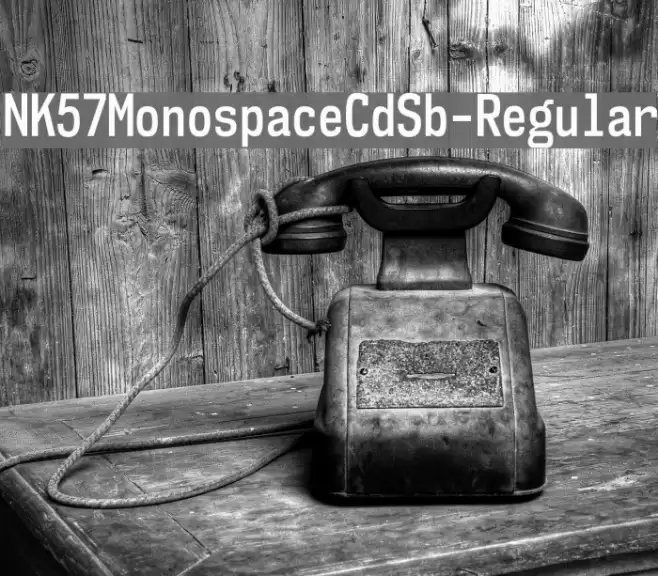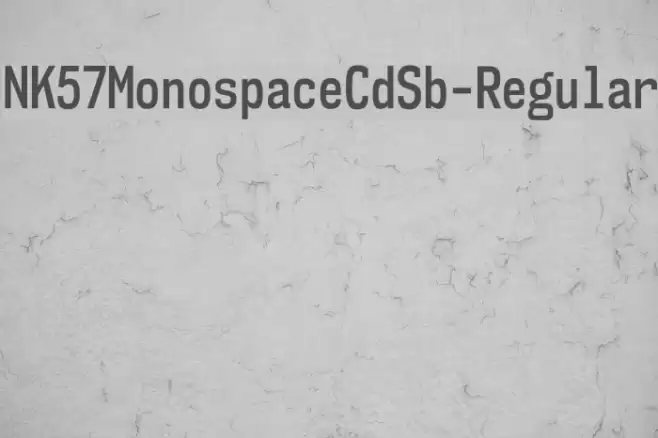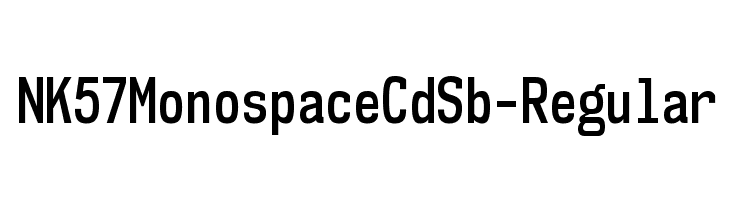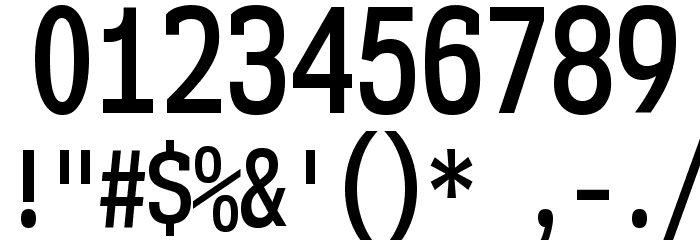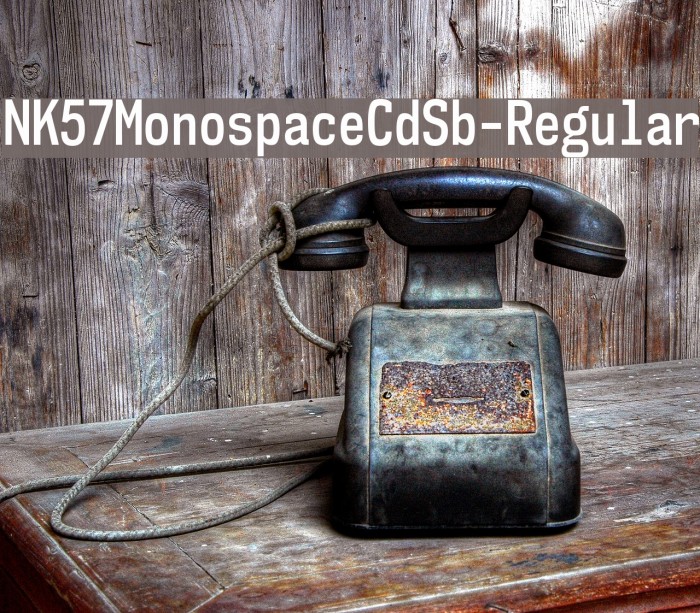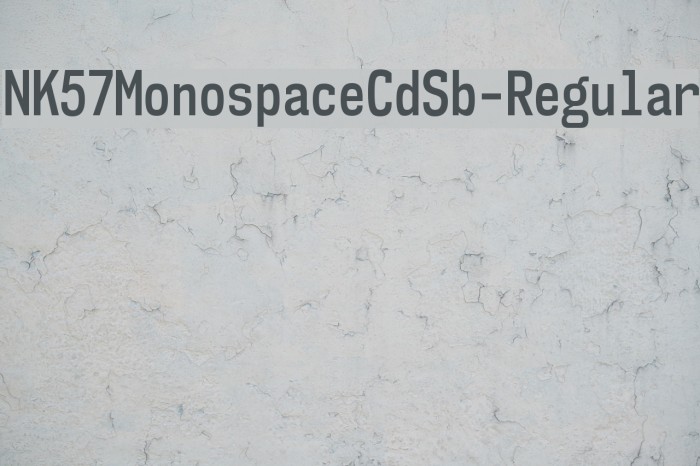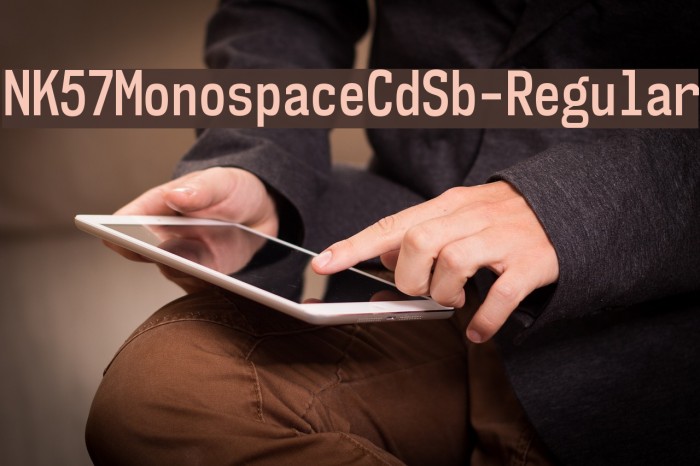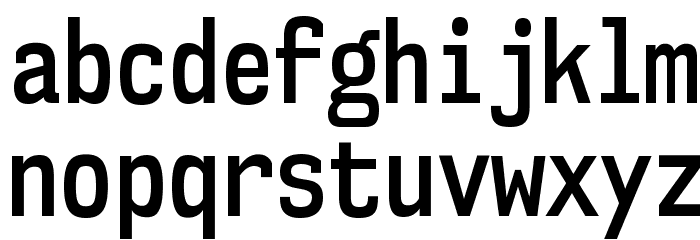
NK57MonospaceCdSb-Regular Font
NK57MonospaceCdSb-Regular Description
This font is a monospaced typeface characterized by its uniform character width, which ensures that each letter and symbol occupies the same amount of horizontal space. It features a clean and modern design with straight lines and minimal curves, making it highly legible and suitable for coding and technical documentation. The uppercase and lowercase letters are well-balanced, with a slightly condensed appearance that maximizes space efficiency. The numerals are clear and distinct, enhancing readability in data-heavy contexts. Special characters are designed with precision, maintaining the overall aesthetic of the typeface.
A modern, monospaced font with uniform character width and high legibility from Basic fonts.
- Proposed Projects: Ideal for coding, technical documentation, data tables, and any project requiring precise alignment.
- Use Case: Coding, Technical documentation, Data tables